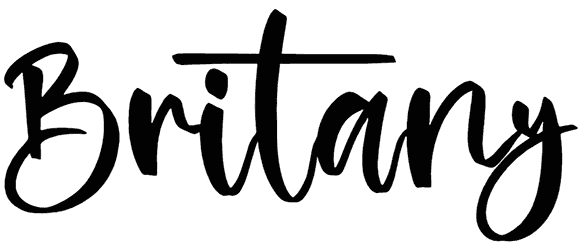
Britany Font
How can you deny the charm of calligraphy text in modern or classic designs? Britany is a curvy and elegant script font that is a professional item for flyers, business cards, invitations, and more the same. The good news is Britany has A-Z characters, and with two versions’ support, it will give you even more possible choices.